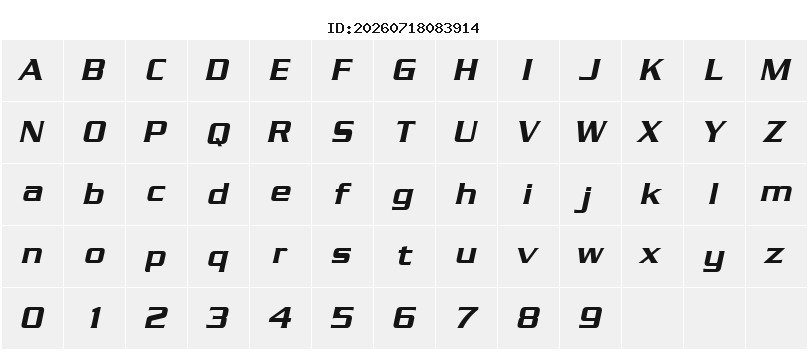
Chaney Preview
• Font Name: Chaney
• Font ID: FontMonger:Chaney Bold Italic
• Full Font Name: Chaney Bold Italic
• Version: 1.0 Wed Jul 28 02:15:17 1993
• PostScript Name: ChaneyBoldItalic
About Chaney.ttf
Chaney.ttf is a modern, elegant sans-serif font designed for ultimate readability and visual harmony. Perfect for branding, headlines, web design, and print materials.